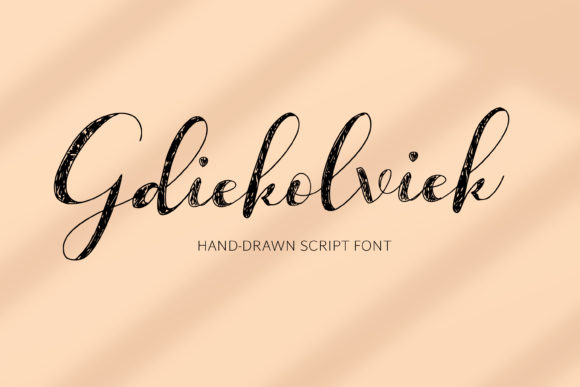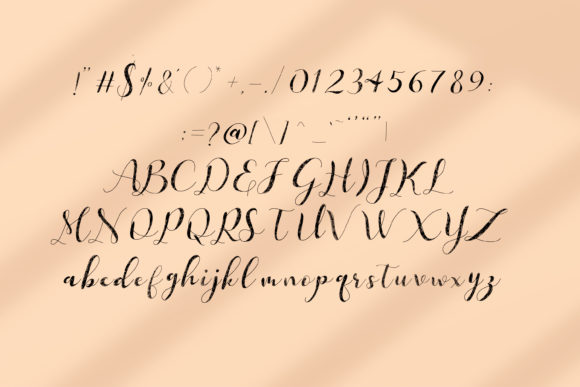
Gdiekolviek Font
About Gdiekolviek Font
Gdiekolviek is a unique and flowing handwritten font. Maintaining its classic calligraphy while still feeling fresh, this font is perfect for a wide range of creative ideas!